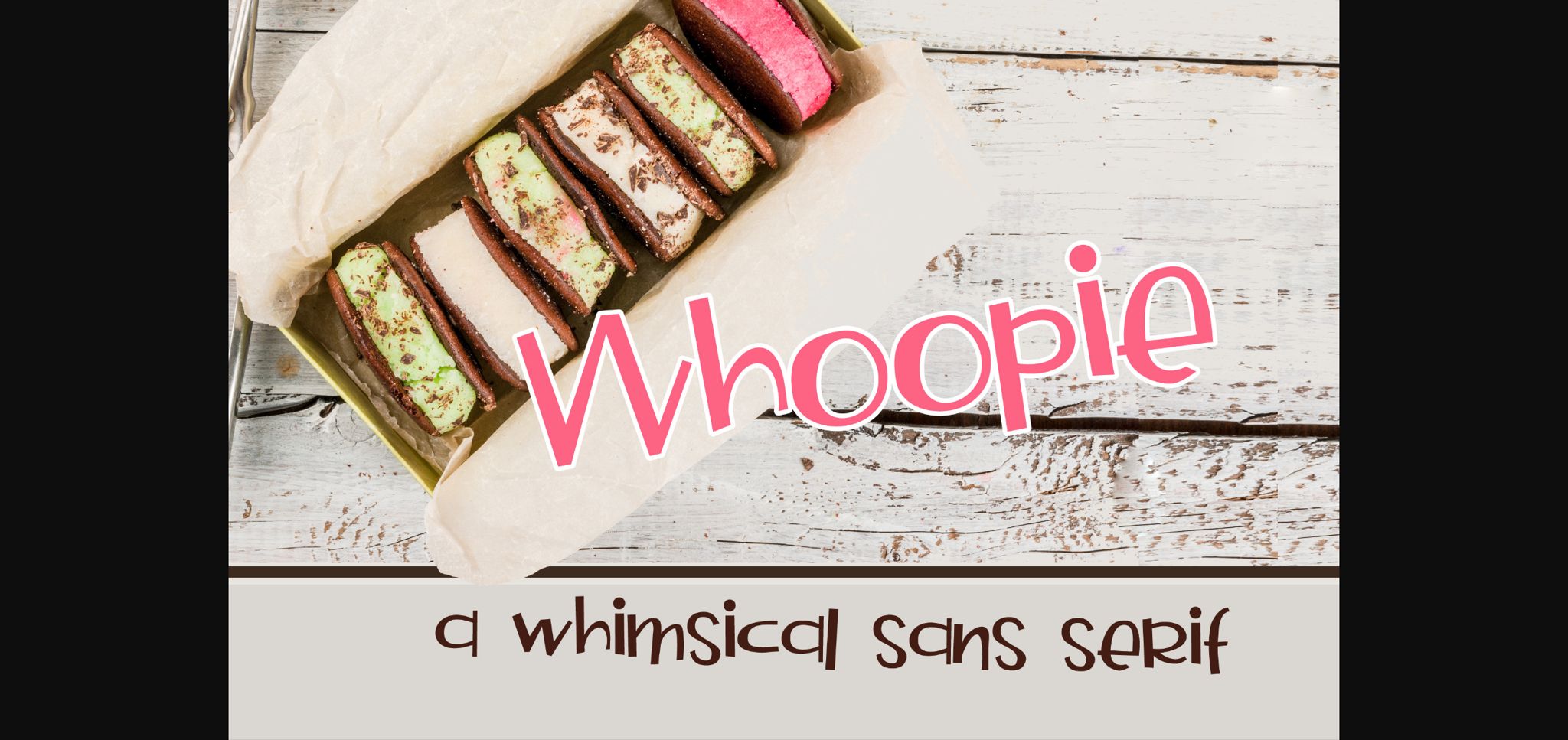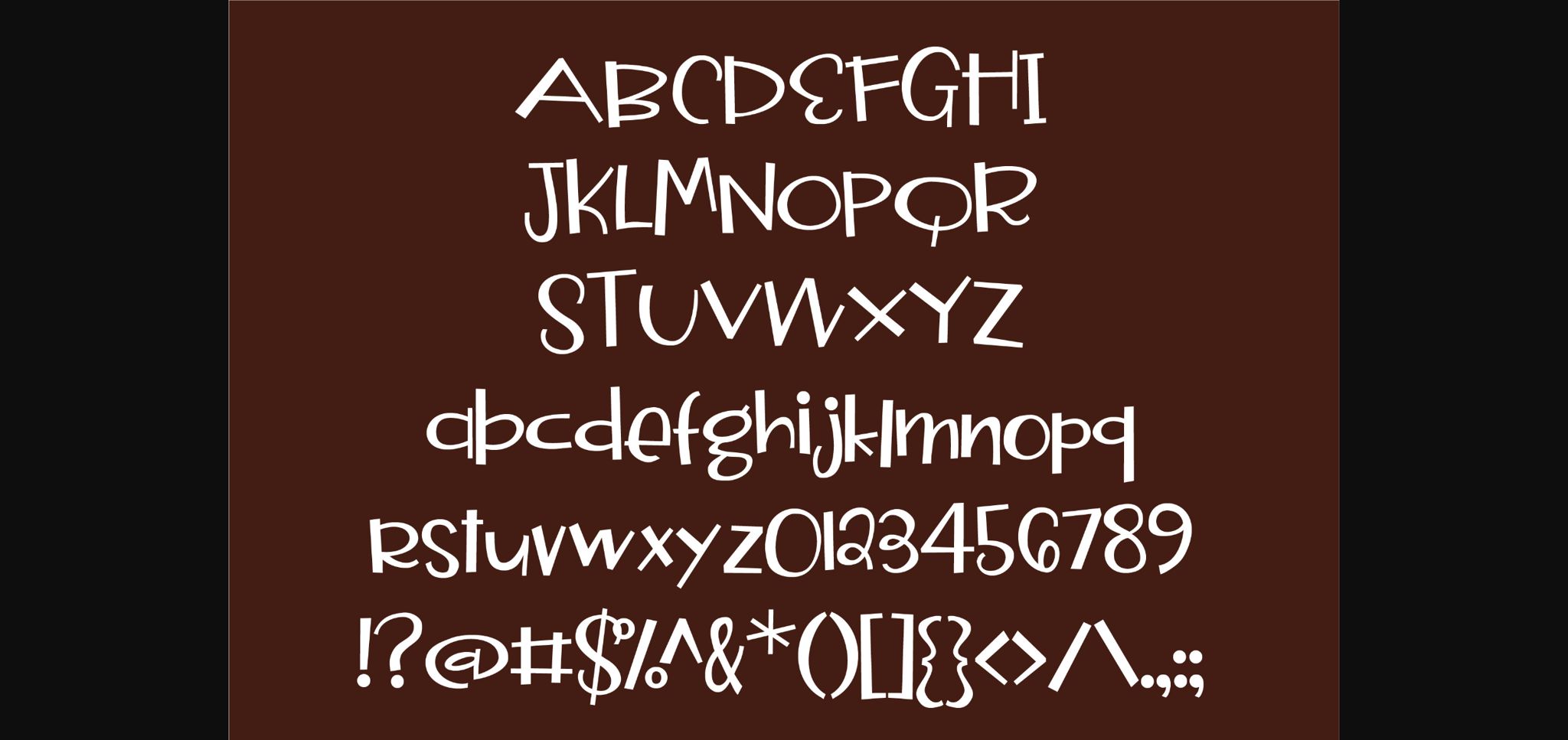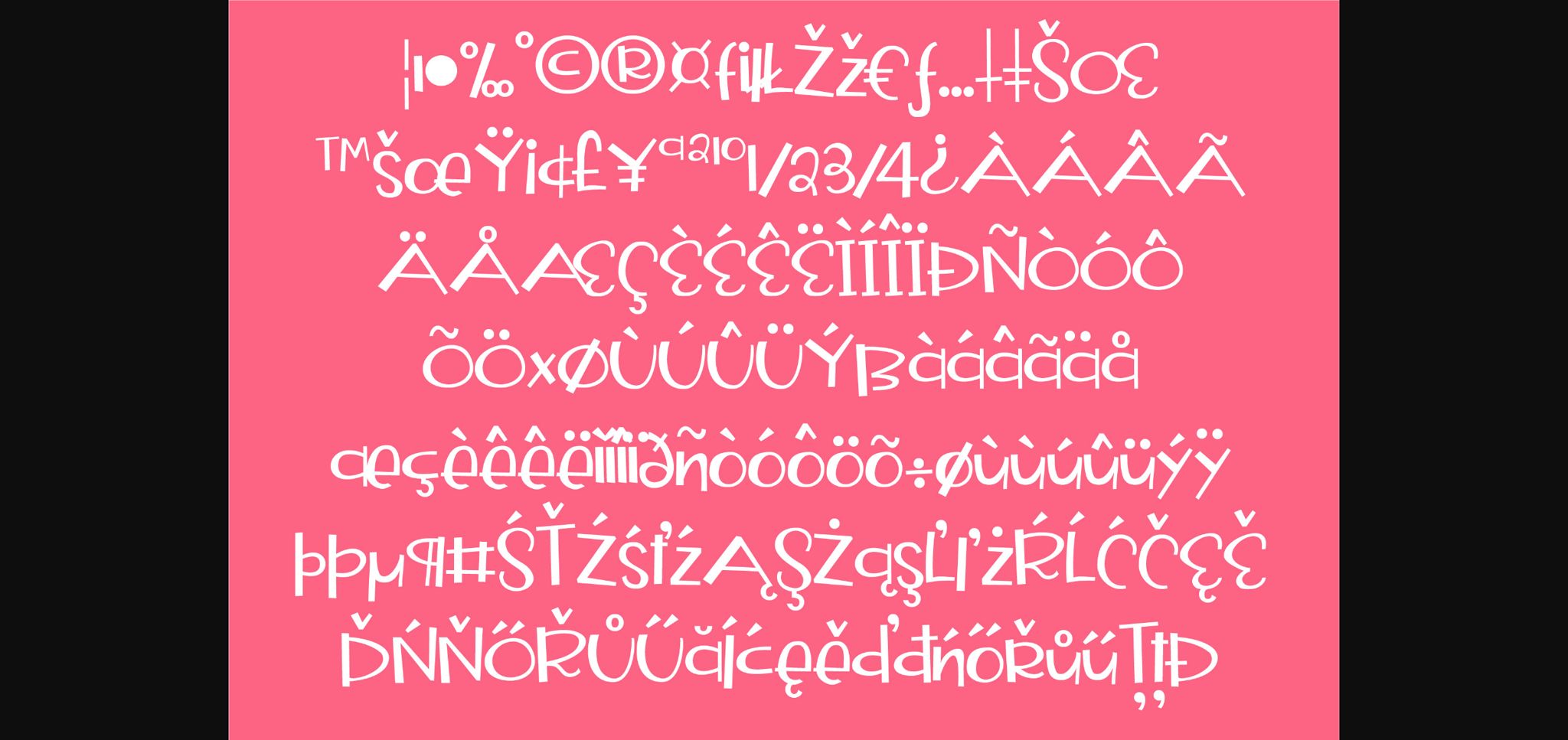
About Whoopie Font
Whoopie is a cute and quirky sans serif font. Its joyful and unique style makes this font fit for a wide pool of contexts. Add it to your creative ideas and notice how it makes them stand out!